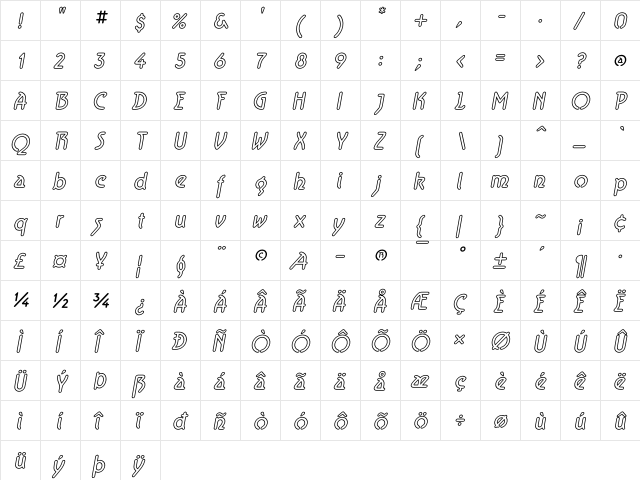
Aerolite Sky Italic Regular
| Foundry | Jan Paul, ƎIGMA FONTS |
| Designer | Jan Paul |
Design Context for Aerolite Sky Italic Typeface
Aerolite Sky Italic offers clean, dependable letterforms without strong stylistic allegiance, making it a practical choice for designers who need flexibility. Its italic angle brings a sense of urgency and motion to the letterforms.
Pro Tip: Try Aerolite Sky Italic for annotation and caption copy alongside an upright companion — the contrast in angle creates a dynamic but ordered typographic system.